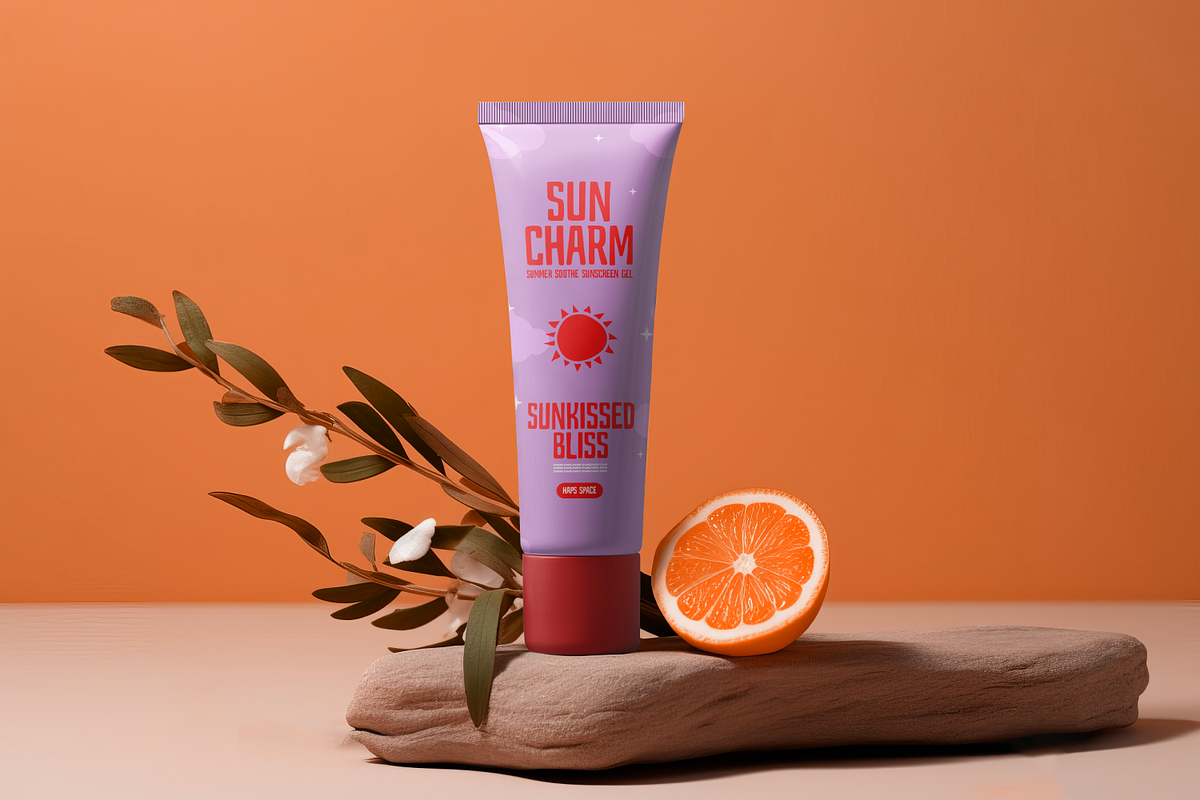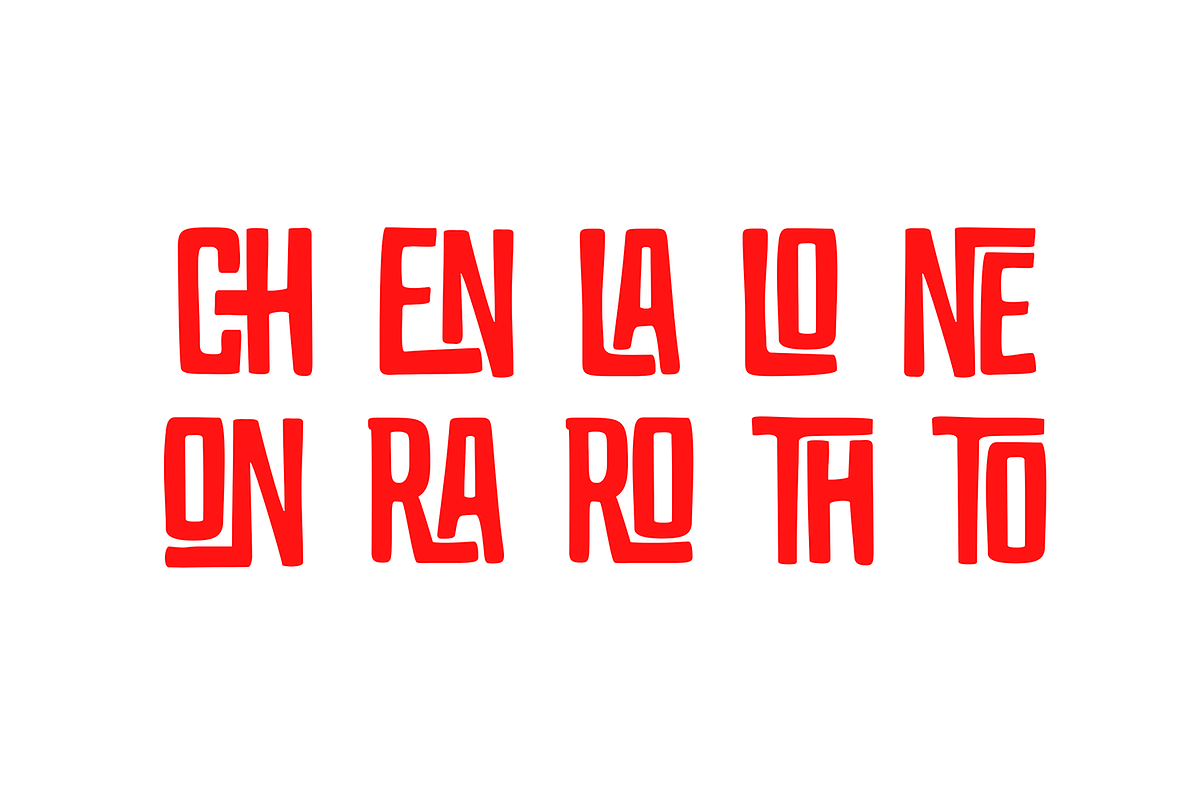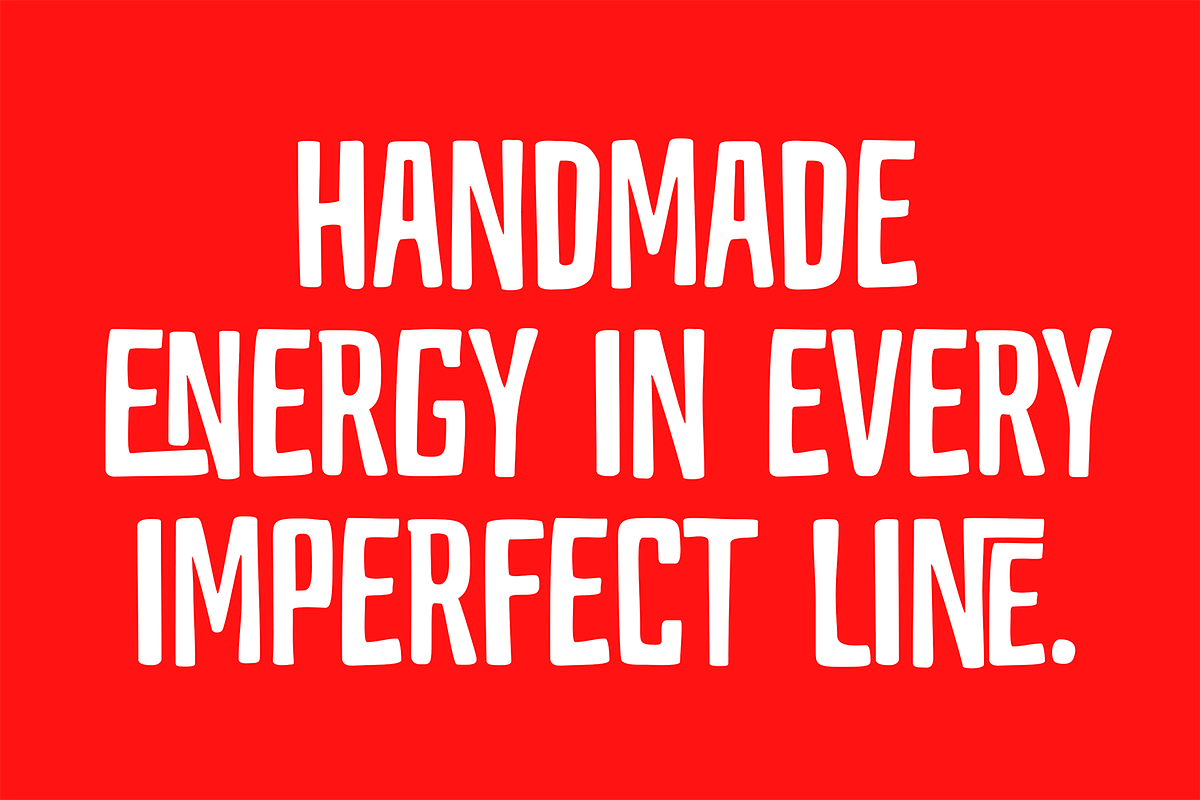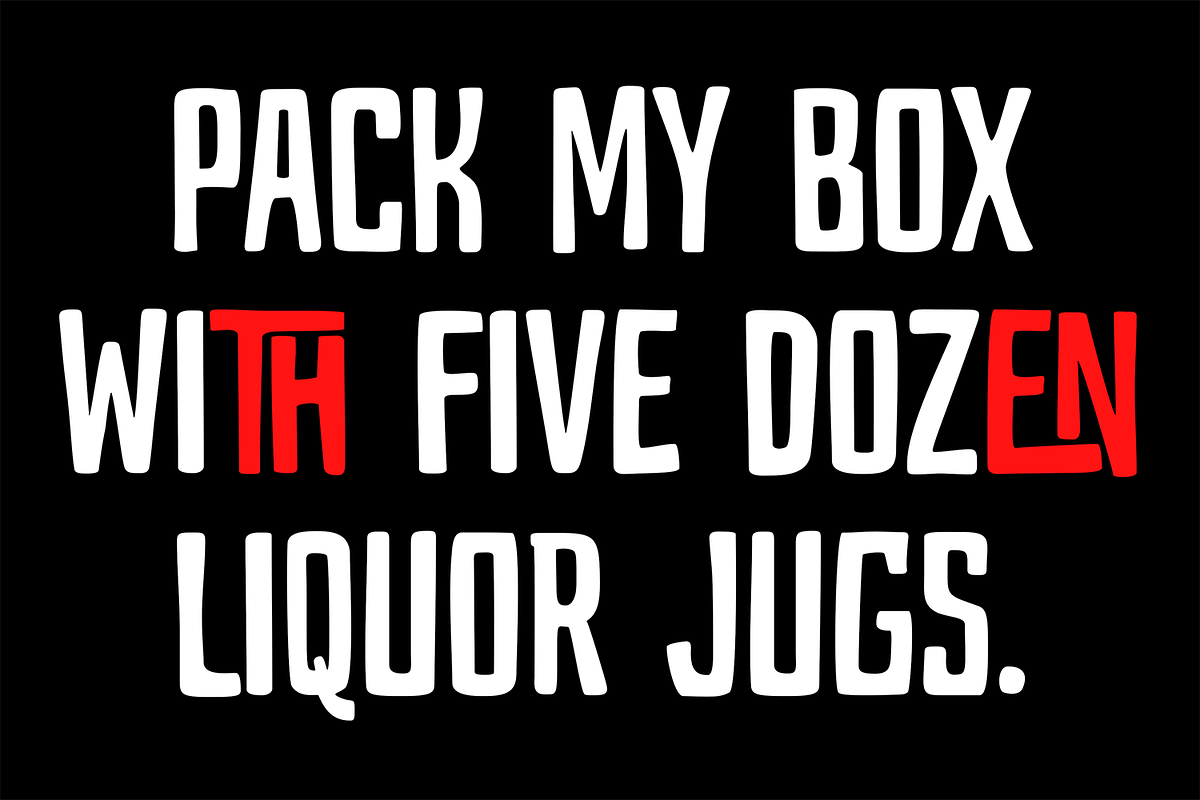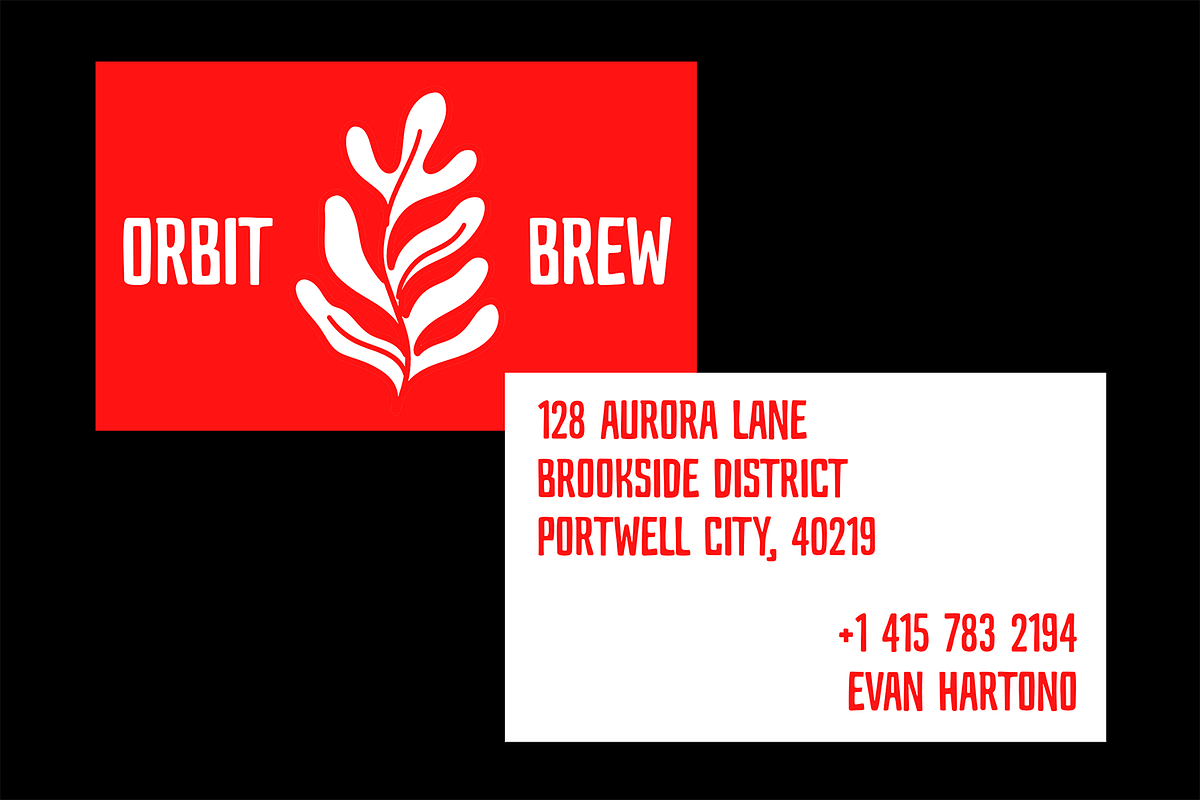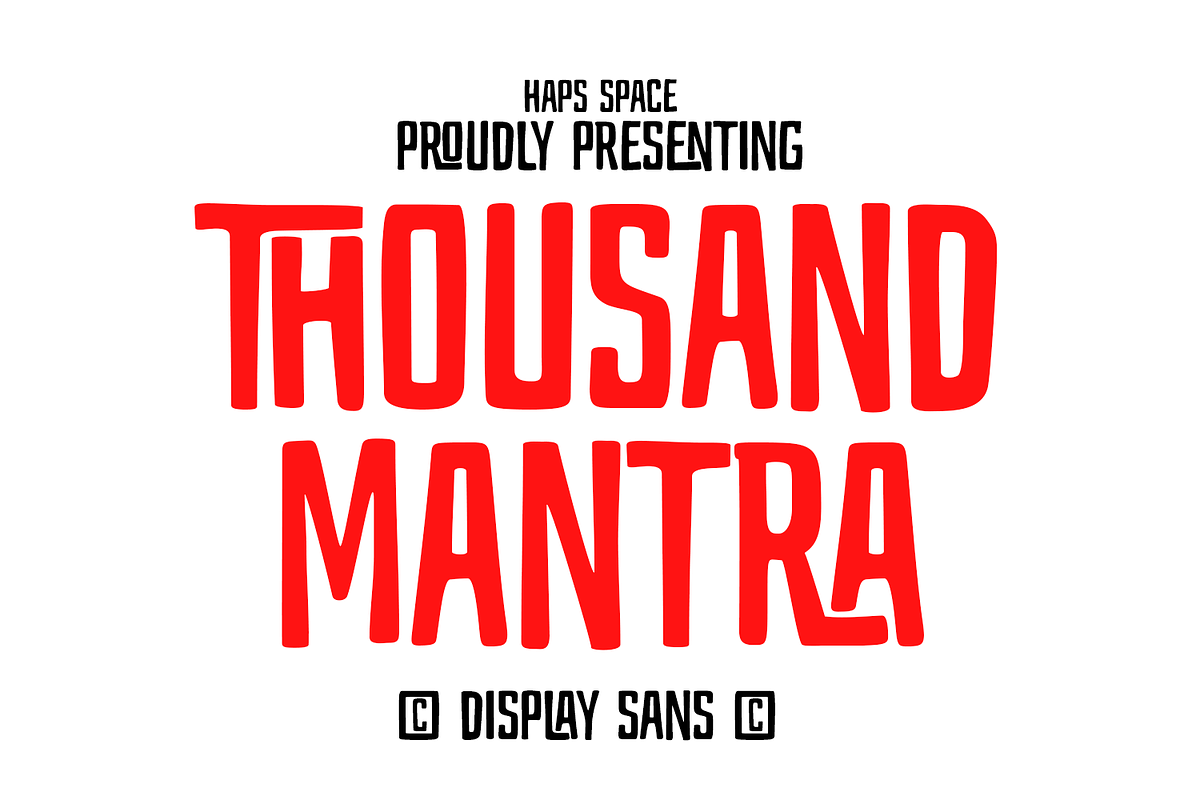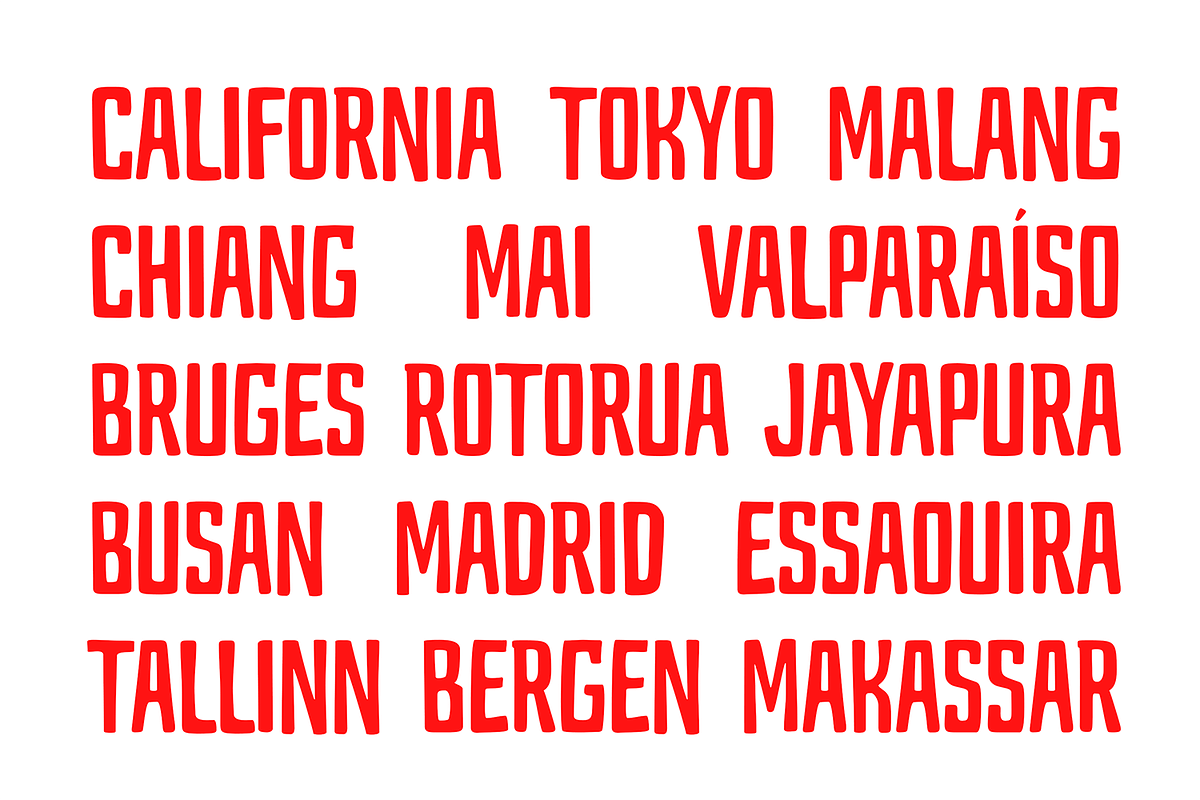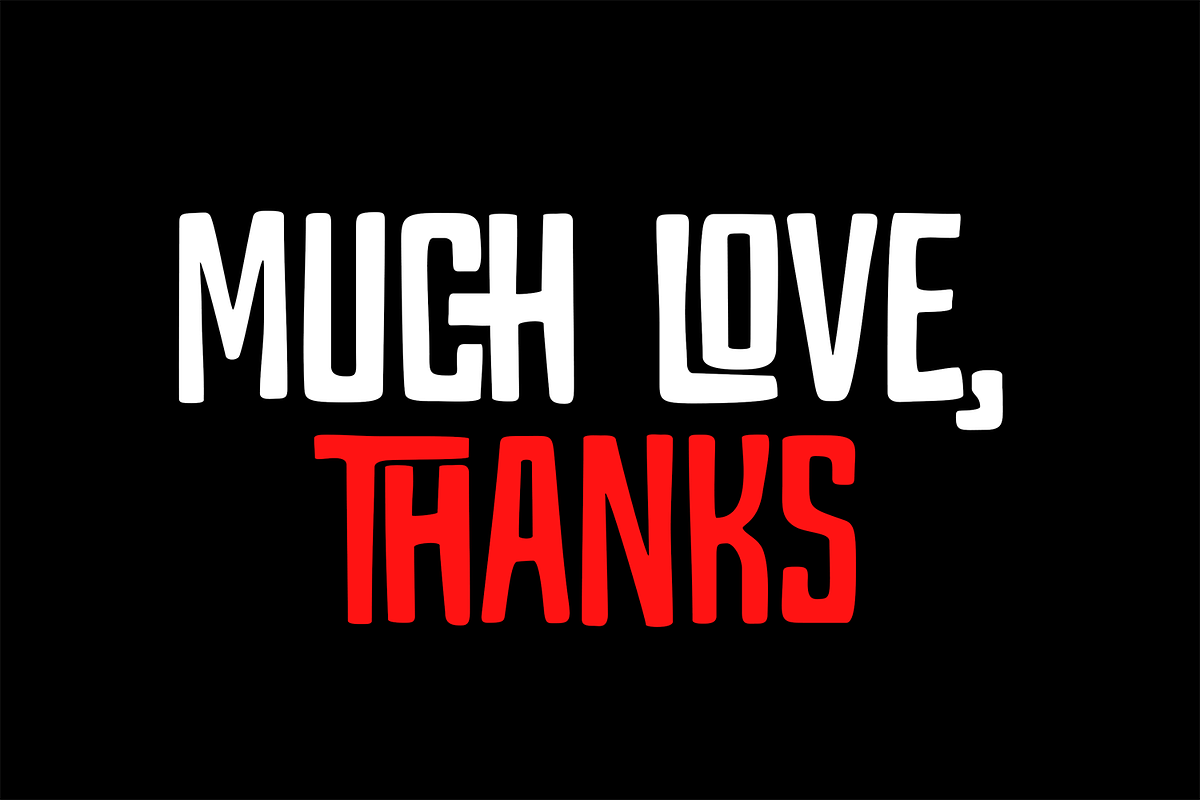
Thousand Mantra Bold Display
Thousand Mantra is a bold display sans font designed to make a strong visual impact. With its tall letterforms, thick strokes, and slightly condensed shape, this font delivers a powerful and modern look that stands out in large typography. The characters are clean yet expressive, making it perfect for designs that require attention and strong personality.
Thousand Mantra works especially well for headlines, posters, branding, logos, merchandise, and bold graphic layouts. Its striking style makes it ideal for projects that need a confident and energetic typographic presence.
* Unique Letterforms